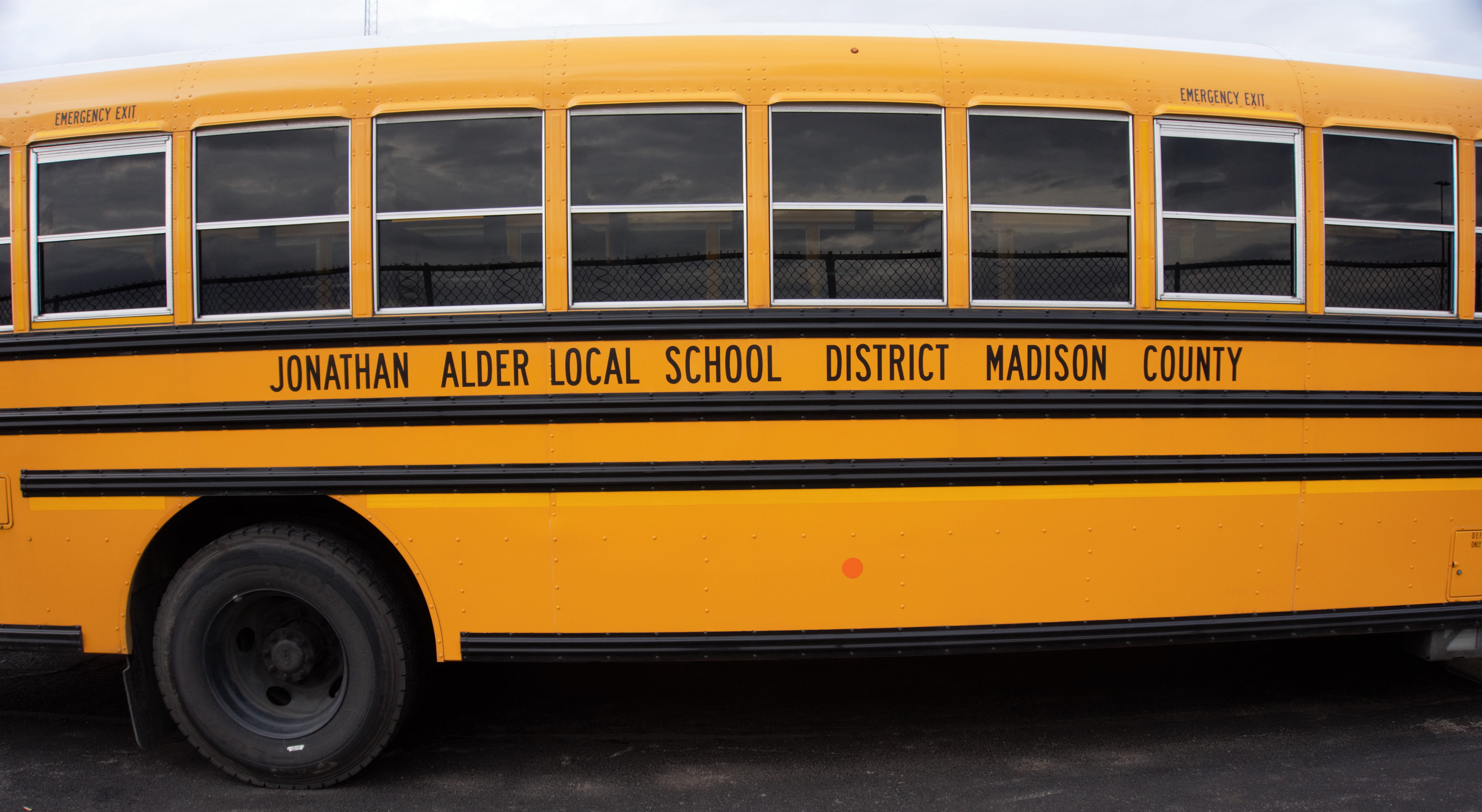
What Font Is Used On School Buses . All lettering is a series b font, which is a legal typeface for school. Just follow the red arrows! Florida specifications (2002, revised, page 13 group iii) require the school bus letters front and rear to be 8, series b, standard alphabet, and the school. Have you ever wondered what school bus fonts are used or what school bus fonts are allowed by law. Looking for decals or lettering for a school bus? Both are nice, chunky, legible from a distance, and not some variation of helvetica/arial/roboto. All about school bus fonts. Examples of fonts in use tagged with “school buses. The following catalog pages can help you find the decals or lettering you need to get your bus back on the road again. In this post, we’ll answer some of those questions. Show them a render in gotham bold.
Both are nice, chunky, legible from a distance, and not some variation of helvetica/arial/roboto. Have you ever wondered what school bus fonts are used or what school bus fonts are allowed by law. All about school bus fonts. Examples of fonts in use tagged with “school buses. In this post, we’ll answer some of those questions. Just follow the red arrows! All lettering is a series b font, which is a legal typeface for school. Florida specifications (2002, revised, page 13 group iii) require the school bus letters front and rear to be 8, series b, standard alphabet, and the school. Looking for decals or lettering for a school bus? The following catalog pages can help you find the decals or lettering you need to get your bus back on the road again.
What Font Is Used On School Buses The following catalog pages can help you find the decals or lettering you need to get your bus back on the road again. In this post, we’ll answer some of those questions. Florida specifications (2002, revised, page 13 group iii) require the school bus letters front and rear to be 8, series b, standard alphabet, and the school. Looking for decals or lettering for a school bus? Examples of fonts in use tagged with “school buses. Have you ever wondered what school bus fonts are used or what school bus fonts are allowed by law. All about school bus fonts. Both are nice, chunky, legible from a distance, and not some variation of helvetica/arial/roboto. Show them a render in gotham bold. The following catalog pages can help you find the decals or lettering you need to get your bus back on the road again. All lettering is a series b font, which is a legal typeface for school. Just follow the red arrows!
School Bus Font What Font Is Used On School Buses Examples of fonts in use tagged with “school buses. In this post, we’ll answer some of those questions. Have you ever wondered what school bus fonts are used or what school bus fonts are allowed by law. Just follow the red arrows! Florida specifications (2002, revised, page 13 group iii) require the school bus letters front and rear to be. What Font Is Used On School Buses.
Used School Buses For Sale National Bus Sales What Font Is Used On School Buses All lettering is a series b font, which is a legal typeface for school. Just follow the red arrows! Looking for decals or lettering for a school bus? Examples of fonts in use tagged with “school buses. All about school bus fonts. In this post, we’ll answer some of those questions. The following catalog pages can help you find the. What Font Is Used On School Buses.
Used School Buses for Sale Midwest Transit Equipment What Font Is Used On School Buses Examples of fonts in use tagged with “school buses. Have you ever wondered what school bus fonts are used or what school bus fonts are allowed by law. The following catalog pages can help you find the decals or lettering you need to get your bus back on the road again. Just follow the red arrows! Looking for decals or. What Font Is Used On School Buses.
how to make select bus destination signs using bentheminers fonts and What Font Is Used On School Buses Florida specifications (2002, revised, page 13 group iii) require the school bus letters front and rear to be 8, series b, standard alphabet, and the school. Show them a render in gotham bold. All lettering is a series b font, which is a legal typeface for school. In this post, we’ll answer some of those questions. Just follow the red. What Font Is Used On School Buses.